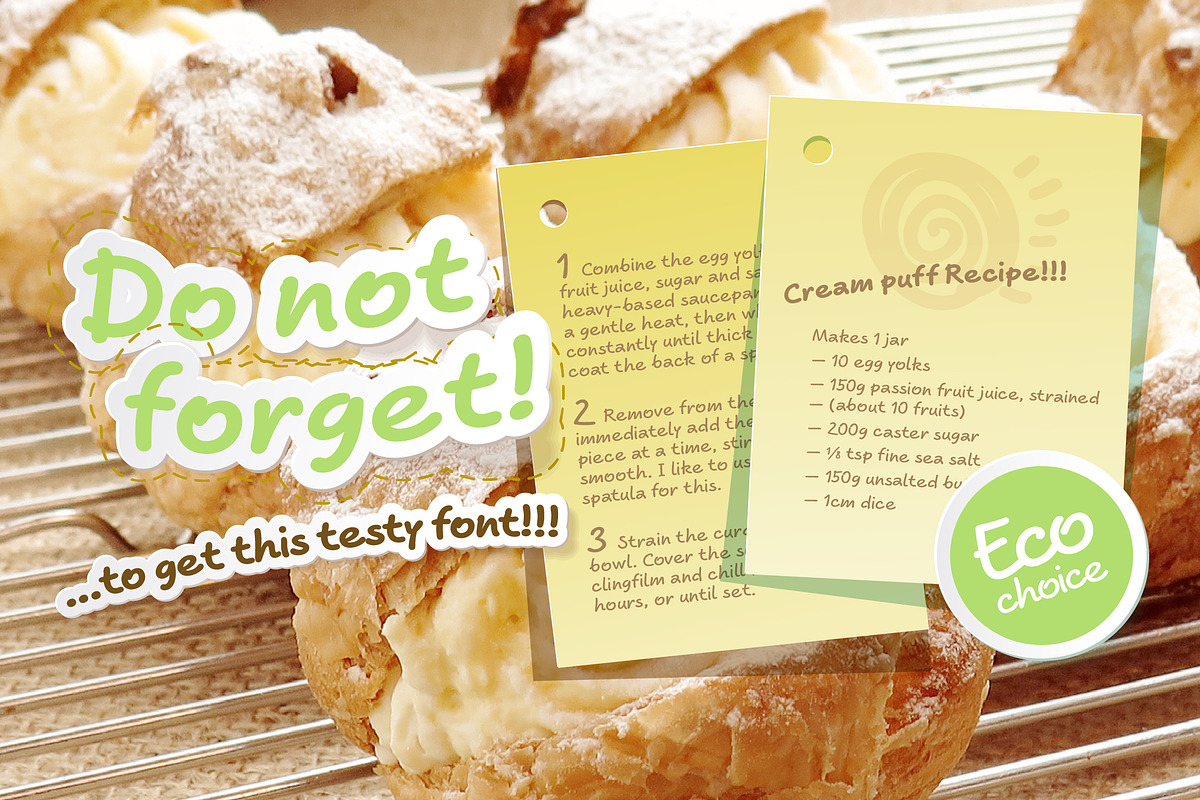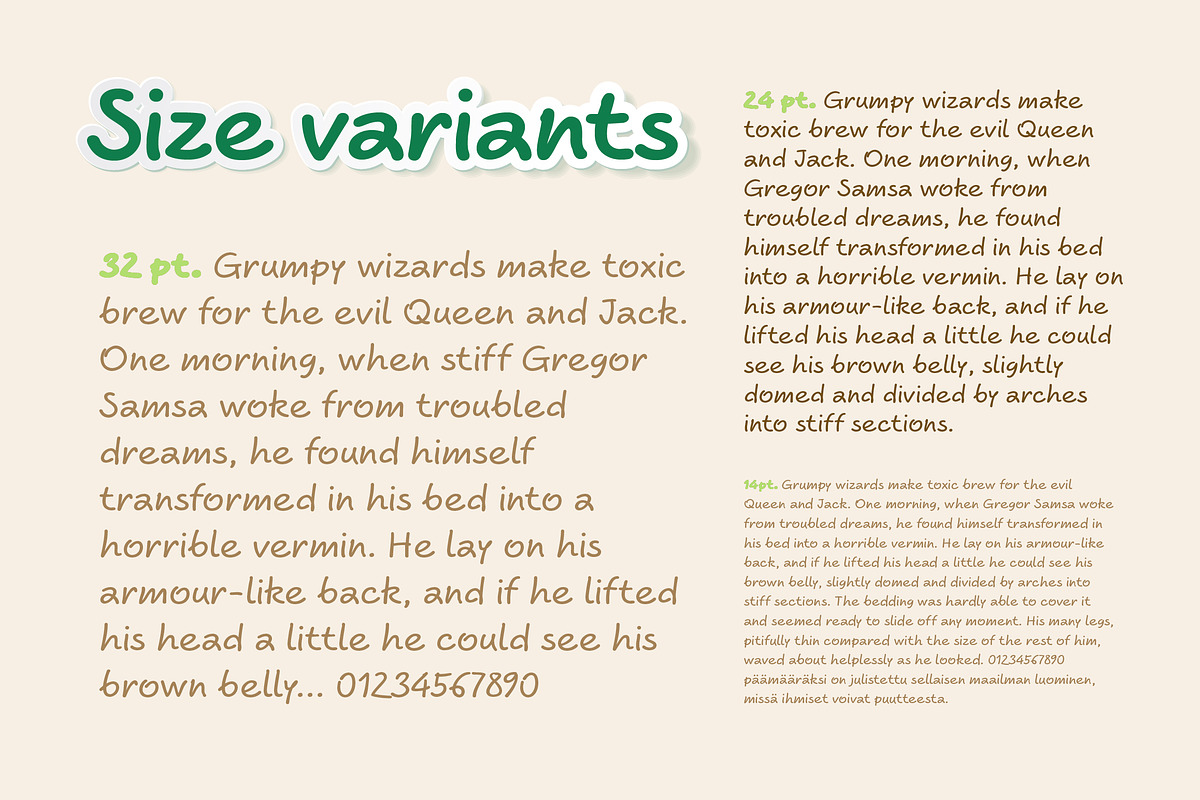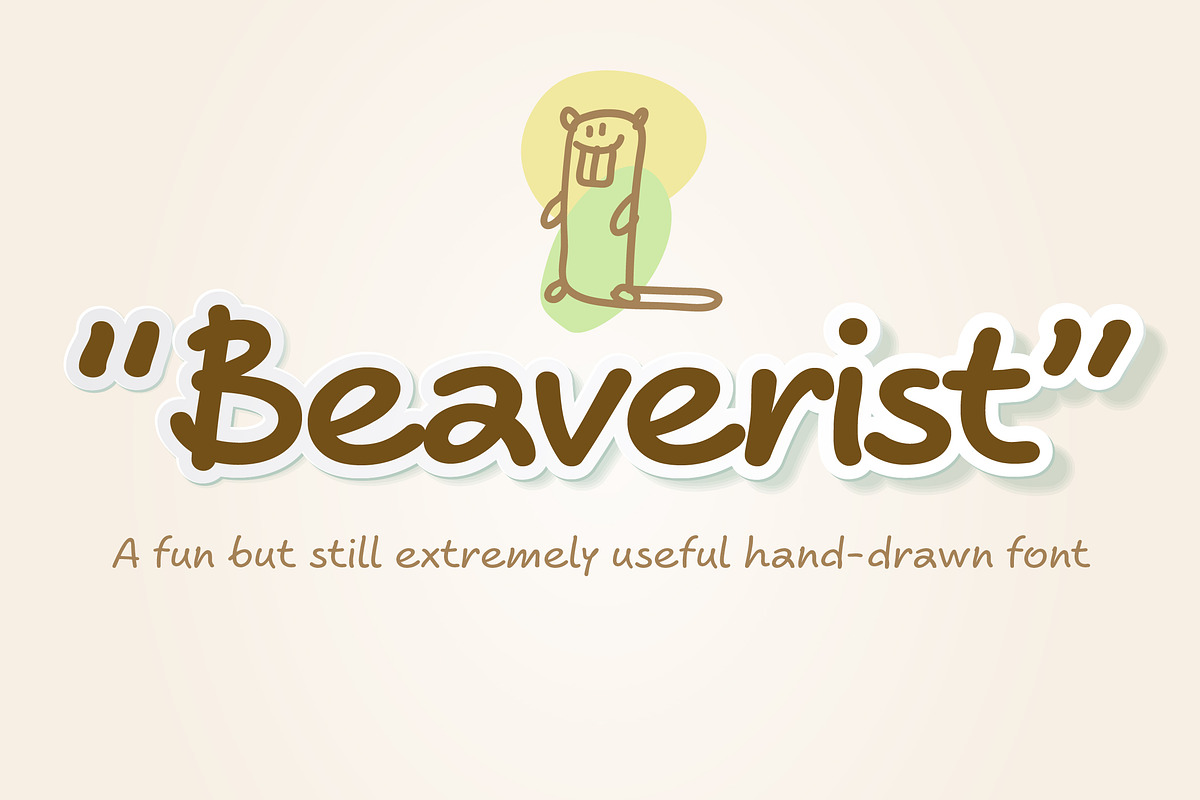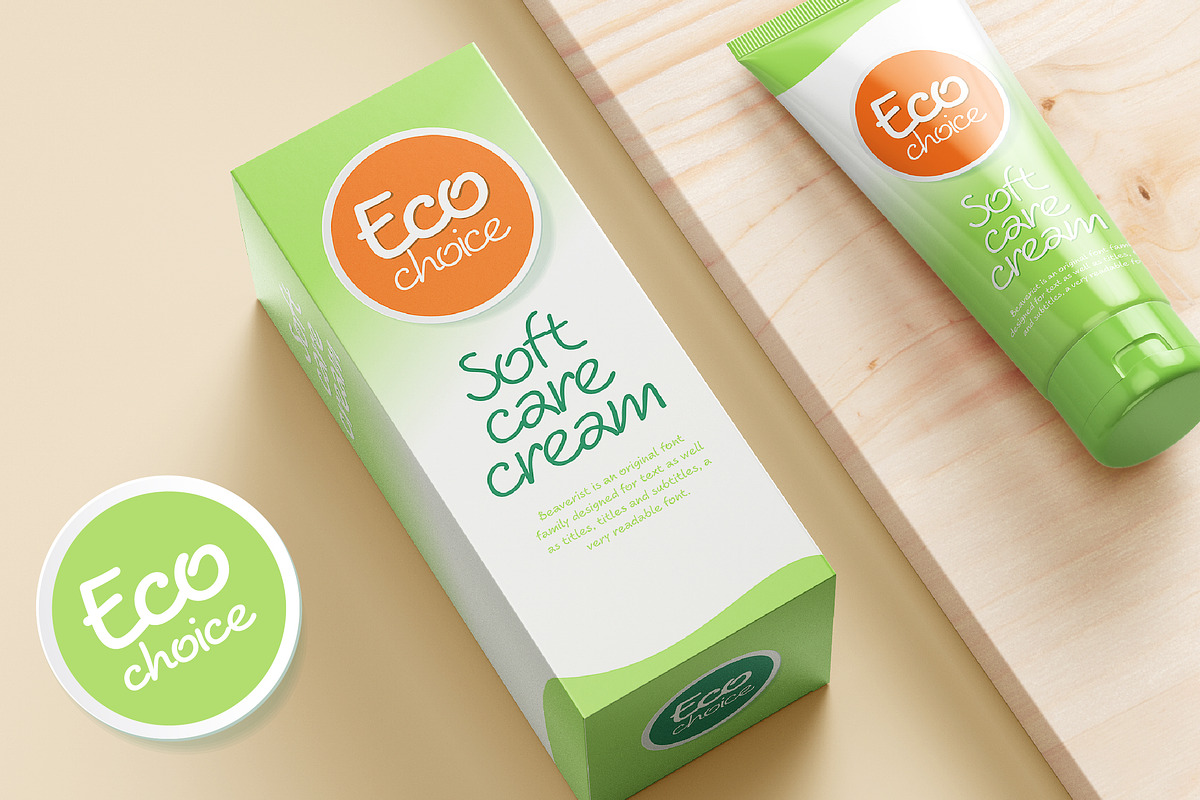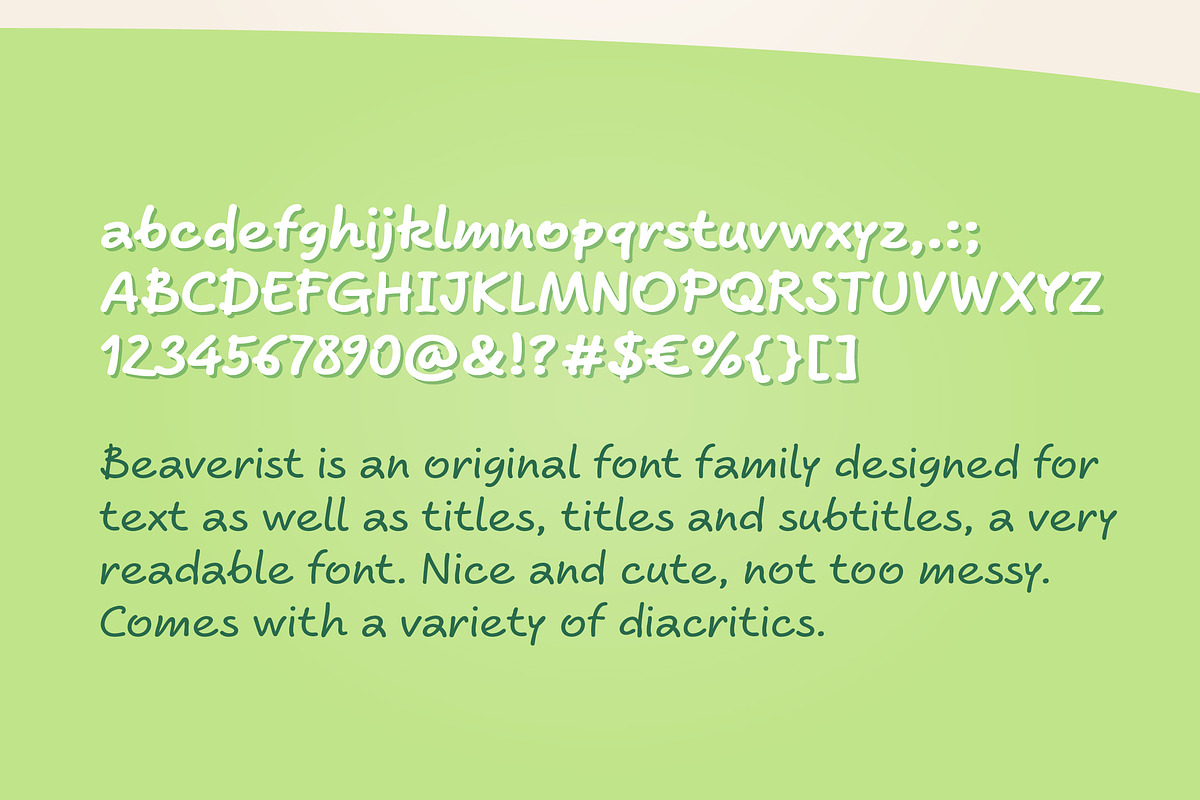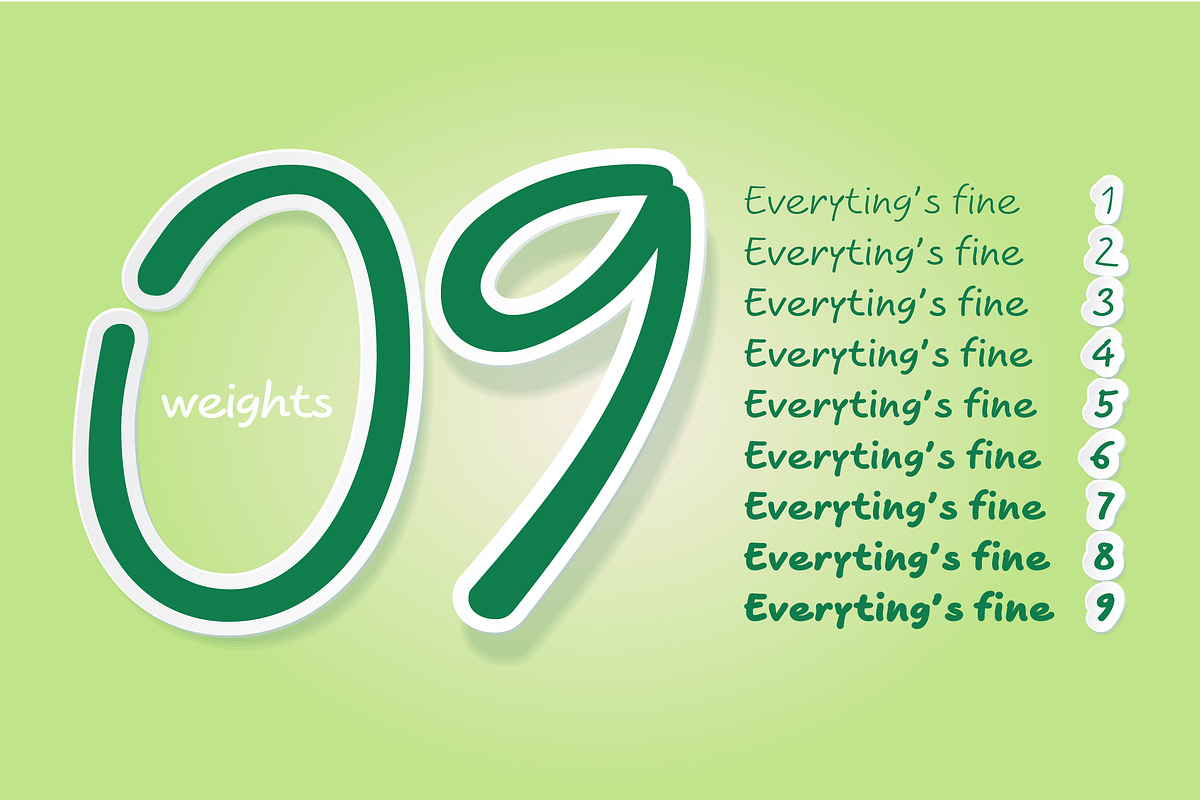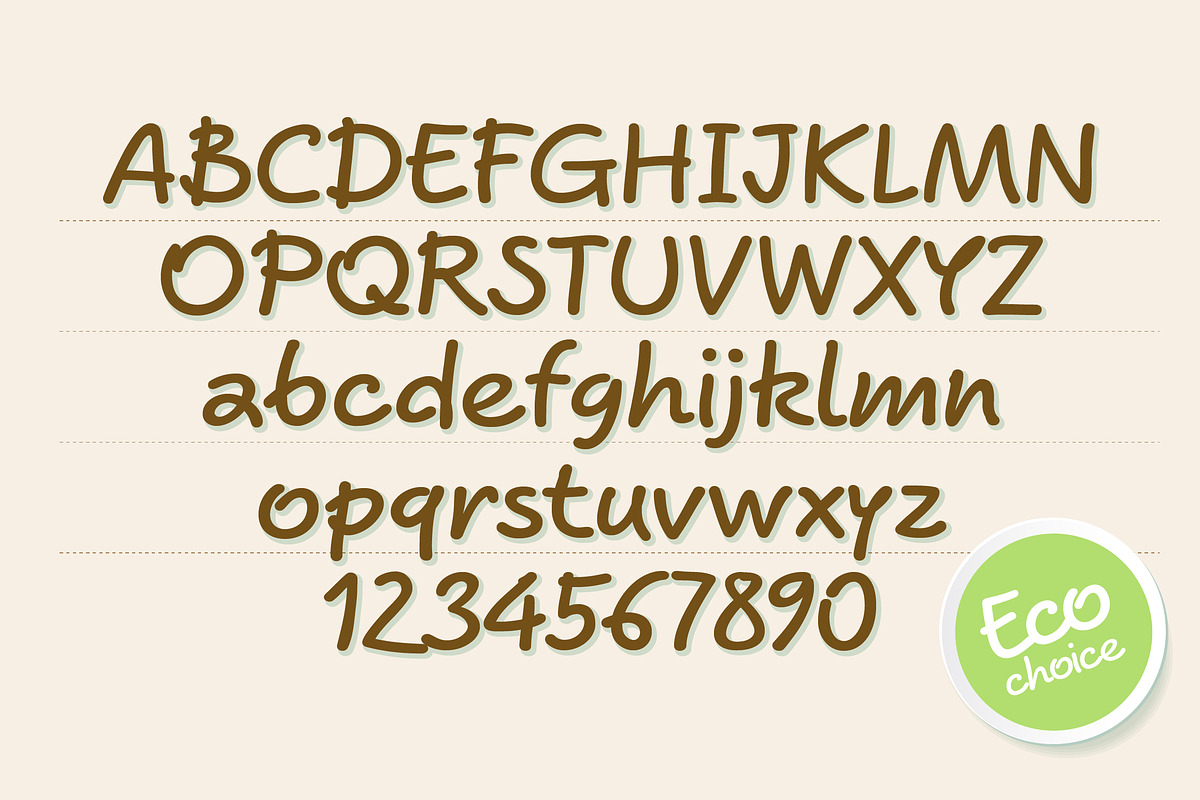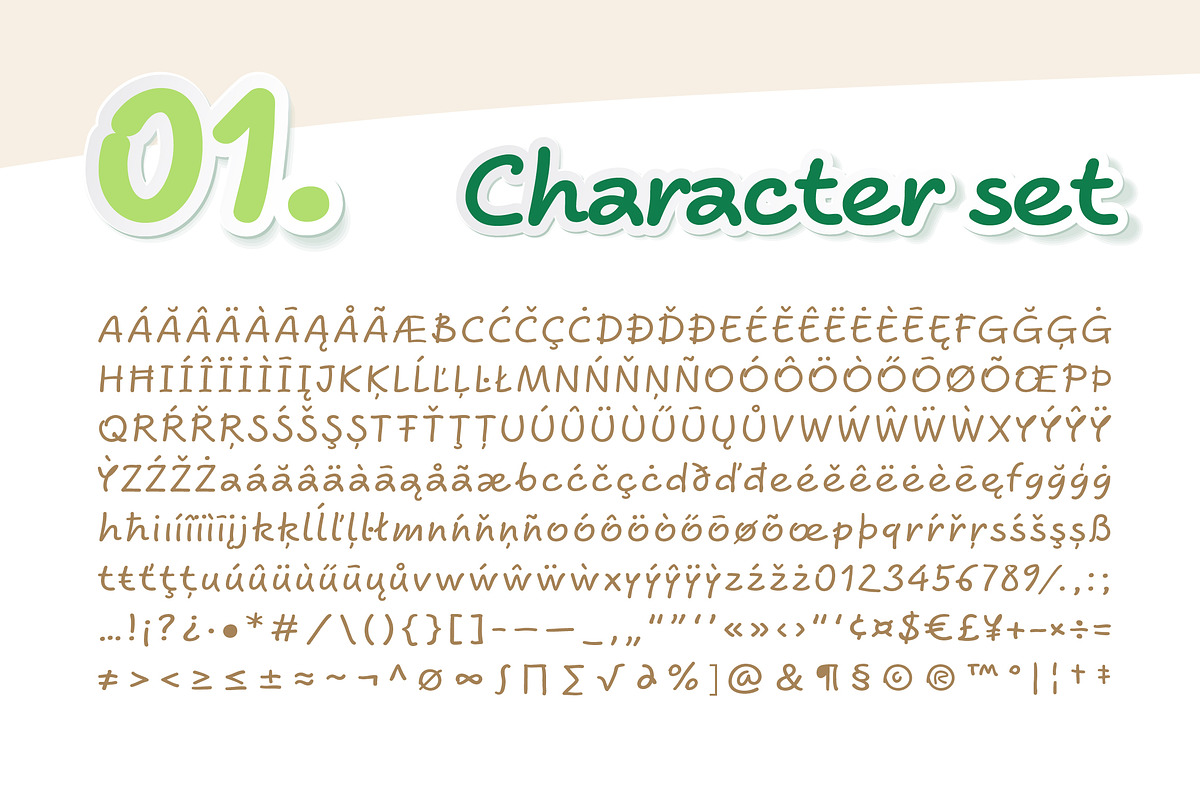
Hand drawn script font. Beaverist
Hand drawn script font. Beaverist by popskraft is a font selected for branding, posters, packaging, typography.
- Despite of freehand stylistic the beaverist font has been designed in accordance with modern font craft technics and contemporary font tools
- Beaverist Thin
- Beaverist ExtraLight
- Beaverist Light
- Beaverist Regular
- Beaverist Medium
- Beaverist SemiBold
- Beaverist Bold
- Beaverist ExtraBold
- Beaverist Black
Hand drawn script font. Beaverist by popskraft fits naturally into Branding, posters, packaging, typography.